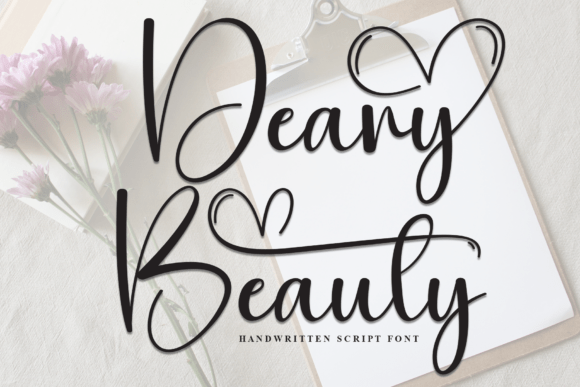
Bringing a Touch of Whimsy to Your Designs
Have you ever stared at a blank page, trying to capture the essence of a special moment or feeling, but the words just won’t flow? It’s a creative’s worst nightmare. But what if you had the perfect tool to help bring your ideas to life?
Enter Deary Beauty Font, a charming script handwritten font that adds a personal, elegant touch to your designs. With its smooth curves and natural flow, it’s the perfect companion for crafting wedding invitations, personal branding, greeting cards, and lifestyle blog graphics that truly reflect your unique style.
As a designer, you know how valuable it is to have a versatile font that can adapt to any aesthetic, from romantic to modern. Deary Beauty Font is that gem, offering a slightly casual style that feels like it was written with care. Whether you’re a seasoned pro or just starting out, this font is sure to become a trusted companion in your creative journey.
Deary Beauty Font Key Features
- Unique Characteristics: Features elegant, modern script and serif styles, perfect for creating visually appealing and sophisticated designs.
- Font Pairing: Designed to pair well with other fonts, allowing for flexibility in creating unique and harmonious typography combinations.
Designer Review: Deary Beauty Font
Overall, I’m quite impressed with the Deary Beauty Font. Here are some things that stand out:
- ✨ Unique and feminine feel, perfect for beauty, fashion, or lifestyle brands.
- ✨ Elegant and refined strokes create a sense of sophistication.
- ✨ The font is highly customizable, making it easy to adjust to various design needs.
- ⚠️ The font may not be as versatile for more serious or industrial brands.
- ⚠️ Some characters may require additional kerning to achieve optimal spacing.
- ⚠️ The font doesn’t come with a complete character set, which may limit its use in certain languages.
Despite these limitations, I believe Deary Beauty Font is a great addition to any designer’s toolkit. Its unique style and high customizability make it perfect for beauty, fashion, and lifestyle brands looking to add a touch of elegance to their designs.
Deary Beauty Font Practical Application Guide
Getting the Most Out of Deary Beauty Font
To get the most out of Deary Beauty Font, use it for:
- Cosmetic and beauty branding
- Fashion and lifestyle design
- Wedding and event invitations
Alternatives to Deary Beauty Font for Designers
Great Vibes Font is a beautiful, elegant script font that is perfect for adding a touch of sophistication to your designs. It’s ideal for use in wedding invitations, greeting cards, and other formal events. When to use: Formal events, wedding invitations, greeting cards.
Comparison to Deary Beauty Font: Great Vibes Font has a more refined and elegant feel compared to Deary Beauty Font, which has a more playful and whimsical vibe. Great Vibes Font is also more versatile and can be used in a wider range of designs.
Lato Font is a clean and modern sans-serif font that is perfect for use in headings and titles. It’s highly legible and works well in a variety of contexts. When to use: Headings, titles, body text in modern designs.
Comparison to Deary Beauty Font: Lato Font is more straightforward and lacks the flair of Deary Beauty Font. However, it’s a great choice when you need a clean and modern font that won’t distract from your content.
Playfair Display Font is a luxurious and elegant serif font that is perfect for adding a touch of sophistication to your designs. It’s ideal for use in high-end branding, advertising, and editorial content. When to use: High-end branding, advertising, editorial content.